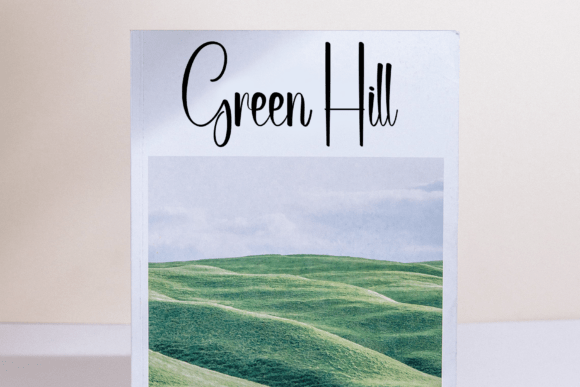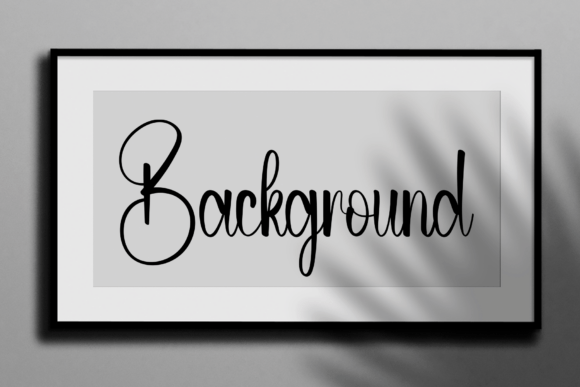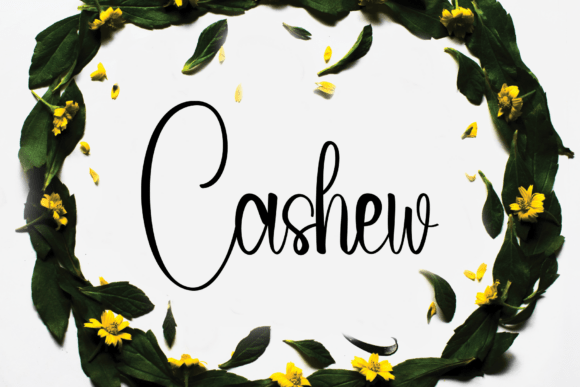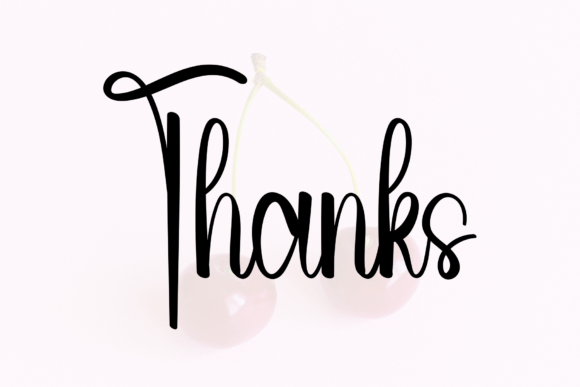
Introducing Brighty Valentine Font: The Perfect Blend of Luxury and Casual
In the world of typography, fonts play a crucial role in conveying the tone and personality of a brand or design. For designers and crafters looking for a unique and eye-catching font, Brighty Valentine is an excellent choice. This handwritten font, drawn with a marker, boasts a relaxed and sporty feel, making it perfect for a wide range of applications.
What Makes Brighty Valentine Font Stand Out?
Brighty Valentine Font is a one-of-a-kind typeface that combines the elegance of luxury brands with the casualness of a sporty vibe. Its distinctive characteristics include:
- Handwritten with a marker feel: The font’s organic and fluid strokes give it a personal touch, making it perfect for designs that require a human feel.
- Relaxed and sporty: The font’s laid-back and casual tone makes it ideal for brands and designs that want to convey a sense of friendliness and approachability.
- Luxurious and elegant: Despite its casual feel, Brighty Valentine Font exudes sophistication and luxury, making it suitable for high-end brands and designs.
Use Cases for Brighty Valentine Font
Brighty Valentine Font is versatile and can be used in various design applications, including:
- Branding: Create a unique and memorable brand identity with Brighty Valentine Font, perfect for companies that want to stand out from the crowd.
- Logos: Design a logo that is both elegant and casual, making it perfect for businesses that want to convey a sense of sophistication and friendliness.
- Wedding supplies: Add a touch of luxury and romance to your wedding designs, such as invitations, programs, and decorations.
- Greeting cards: Create beautiful and heartfelt greeting cards for special occasions, such as birthdays, anniversaries, and holidays.
- Fashion: Use Brighty Valentine Font to create stylish and trendy fashion designs, such as lookbooks, catalogs, and advertisements.
- Marketing promotions: Elevate your marketing materials, such as brochures, flyers, and posters, with a font that is both elegant and attention-grabbing.
Why Designers and Crafters Love Brighty Valentine Font
Brighty Valentine Font has become a favorite among designers and crafters due to its unique characteristics and versatility. Here are some reasons why:
- Easy to read: Despite its handwritten nature, Brighty Valentine Font is clear and easy to read, making it perfect for body text and headlines.
- Customizable: The font’s marker-drawn feel allows for creative freedom, making it easy to customize and adapt to your design needs.
- Time-saving: With Brighty Valentine Font, you can create professional-looking designs quickly and efficiently, saving you time and effort.
Brighty Valentine Font is an exceptional typeface that offers a perfect blend of luxury, elegance, and casualness. Its unique characteristics, versatility, and ease of use make it an excellent choice for designers and crafters looking to elevate their designs. Whether you’re working on branding, logos, wedding supplies, or marketing promotions, Brighty Valentine Font is sure to make your designs stand out.